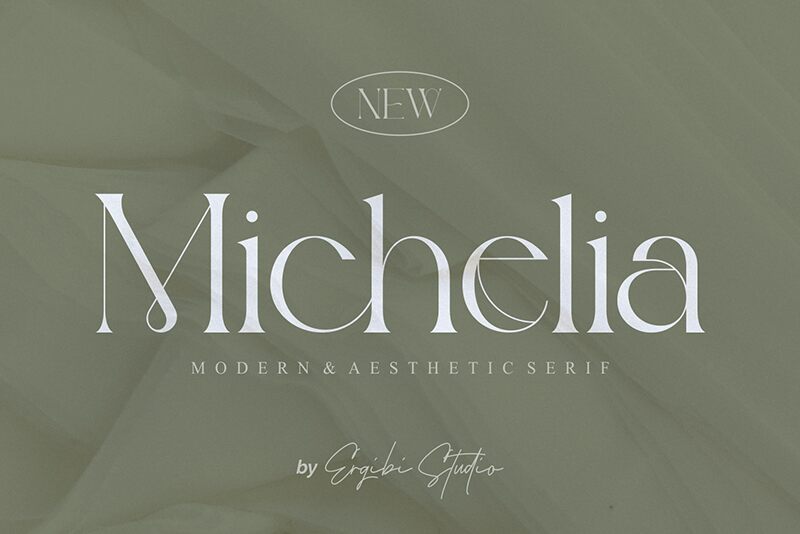
Michelia
Michelia is a vintage serif font designed by Riyadh Rahman. Its light weight gives it a unique character, making it perfect for projects such as wedding invitations, logo designs, posters and book covers.